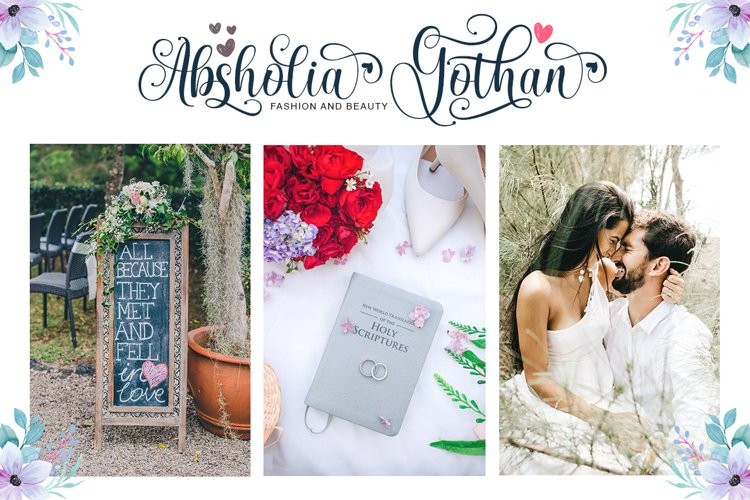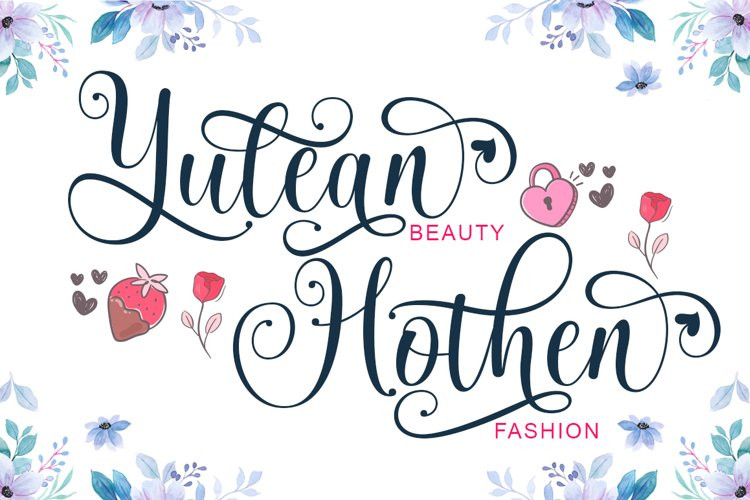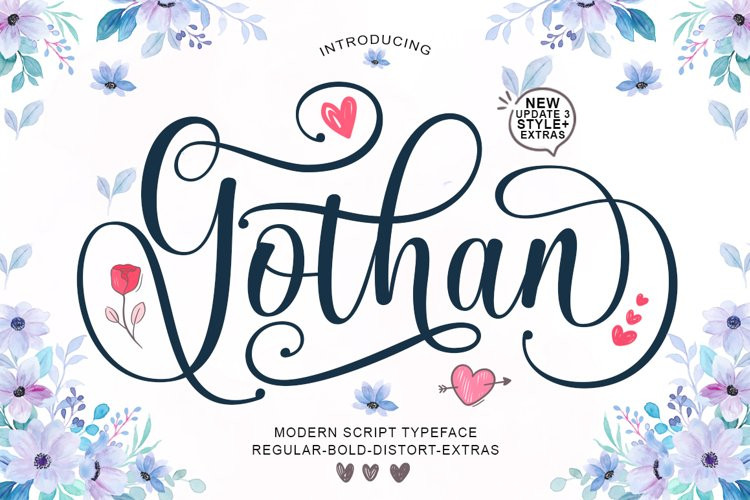
Gothan Font
Gothan FontGothan Scripts Fresh & modern new scripts with handcrafted calligraphy style, decorative characters and dancing baselines! Very pretty on invitations such as greeting cards, branding materials, business cards, quotes, posters and more!!
Gothan Script comes with 401 glyphs. Alternate characters are divided into several Open Type features such as Swash, Stylistic Sets, Stylistic Alternates, Contextual Alternates. The Open Type feature can be accessed using Open Type savvy programs such as Adobe Illustrator, Adobe InDesign, Adobe Photoshop version of Corel Draw X, and Microsoft Word. And this Font has provided PUA unicode (custom coded font). so that all alternative characters can be easily accessed in full by a craftsman or designer.